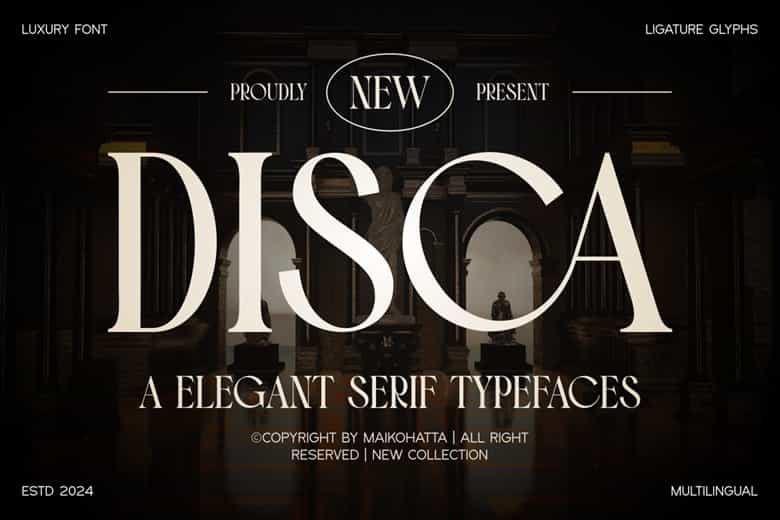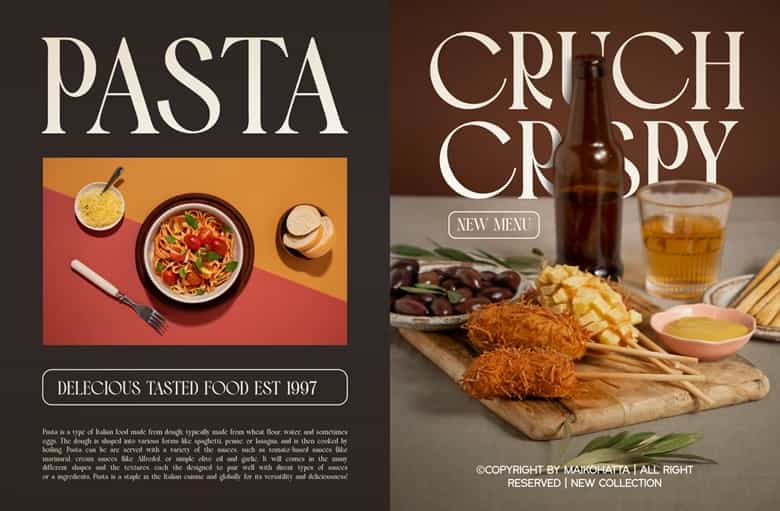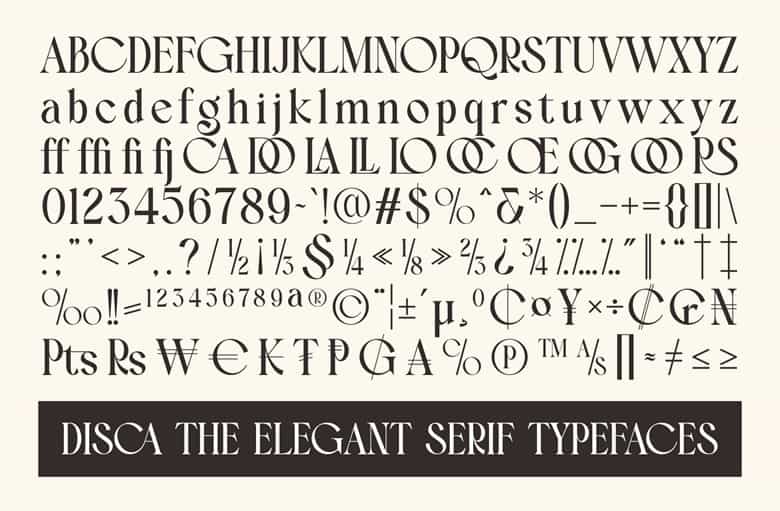
Disca is an elegant serif font. This font is a type of letter that has certain features which give it the characteristics of being luxurious, elegant and strong. These include; The use of appropriately placed thin and thick lines, curved lines, and the perfect arrangement of the serifs. Each character has a detailed design with distinct edges that give the design a graceful look.